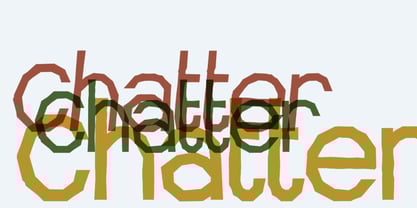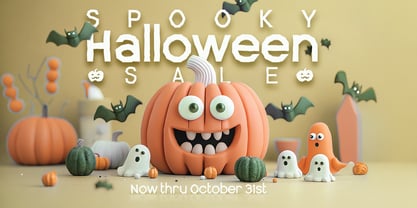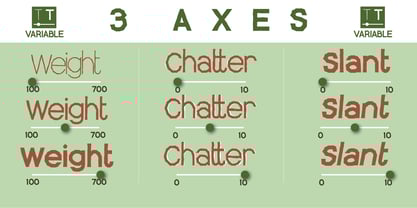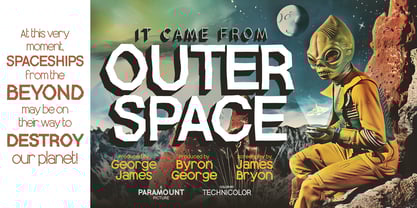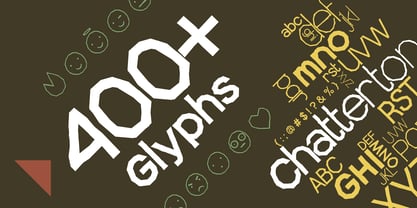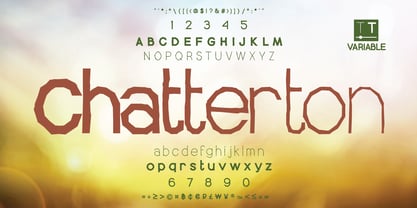
Chatterton
by Varifont
The Chatterton Font Family was designed by and published by Varifont. Chatterton contains 37 styles and family package options. More about this family
A fun high legibiity display sans with animatable texture! Chatterton is a campy and fun family that pushes the boundaries of variable fonts by adding an adjustable texture or "chatter." With 3 axis* for weight, slant, and chatter, this font family is ready for interaction and animation.
Perfect for spooky, campy, or child-like designs, Chatterton brings a smile with its optimism and high legibility. Complete with ligatures, emojis, and multi-lingual support with over 400 glpyhs!